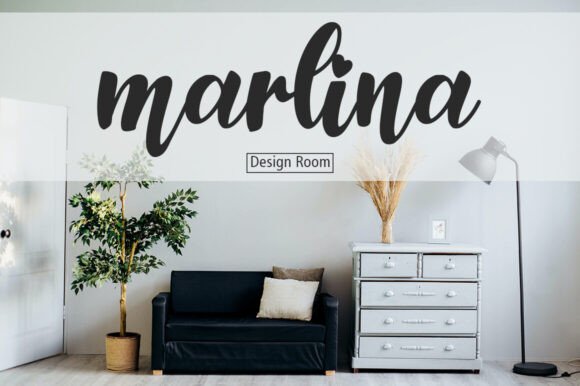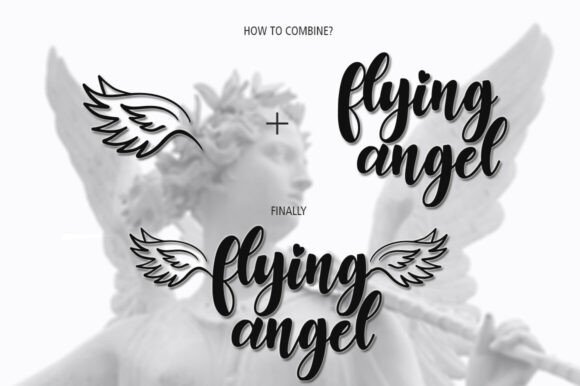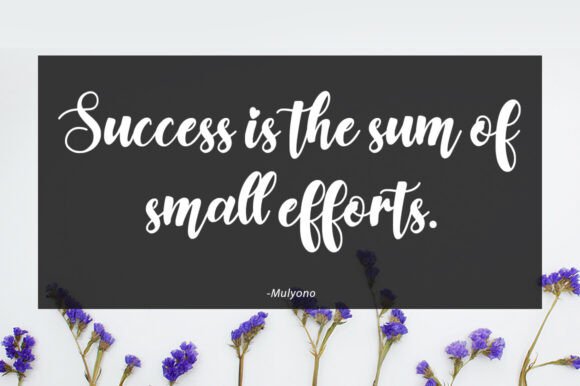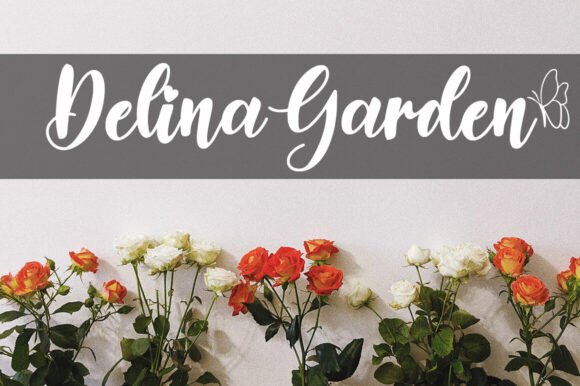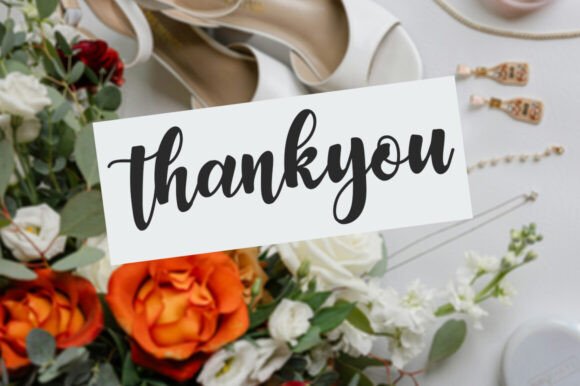
Introduction to Flying Angel Font
Immerse in the world of romance with the Flying Angel font, designed with the enchanting theme of Valentine’s Day in mind.
This versatile font, brimming with the essence of love, effortlessly lends itself to a wide range of creative projects Unleash your imagination with Flying Angel, and infuse your work with an alluring, affectionate touch.
Key Features of Flying Angel Font
Why Choose Flying Angel Font?
Flying Angel Font offers exceptional quality and versatility, making it a valuable addition to your design toolkit. Whether you’re creating for personal projects or commercial use, Flying Angel Font delivers professional results.